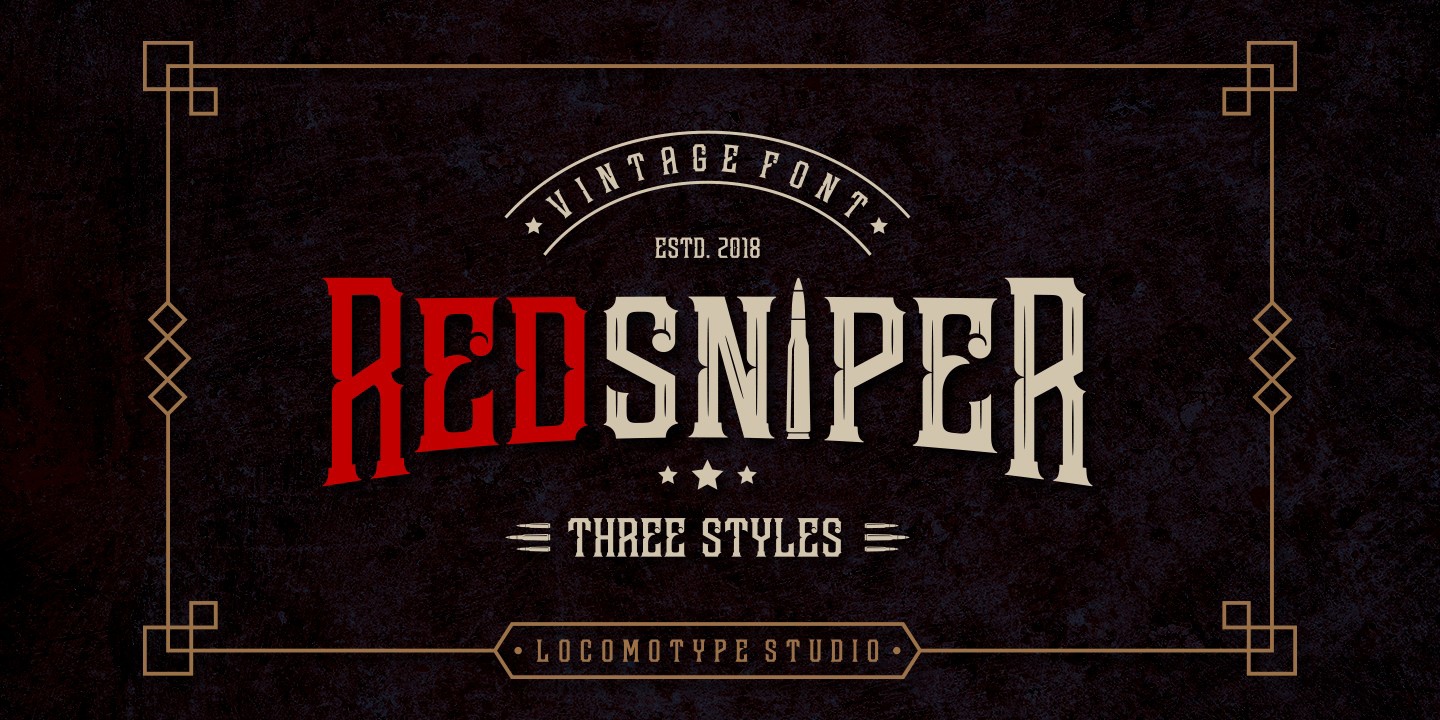
Redsniper Font
This tactical typeface is perfect for military gaming, sniper equipment, precision instruments, tactical gear, shooting sports, hunting brands, military simulation, combat training, and sharp-shooting design applications.
What makes this font exciting is its precision targeting combined with tactical accuracy, offering designers a sharp-shooting typeface that captures the essence of military precision while delivering sniper-level focus and crosshair visual dominance.
The Redsniper font family includes light, regular, medium, bold, tactical, and precision variations, providing complete military design solutions for creating accurate tactical visual identities.
Whether you're developing precision equipment brands or crafting tactical design experiences, Redsniper Font Free Download brings exceptional military atmosphere and sniper authenticity to every application. This precise typeface combines military typography traditions with contemporary tactical design, creating letterforms that inspire accuracy and celebrate precision excellence. The font's tactical construction and sharp-shooting-ready details make it perfect for brands seeking immediate military recognition.
Redsniper Font features carefully engineered tactical styling with authentic military character that conveys genuine precision expertise. Each character has been designed with sharp proportions and targeting elements that enhance the accurate aesthetic. The font's tactical qualities make it particularly effective for military brands and precision applications.
Professional designers choose Redsniper Font for projects requiring authentic military credibility and tactical atmosphere. Its precision heritage makes it exceptionally well-suited for military equipment companies, shooting sports organizations, and tactical lifestyle brands. The font's versatile tactical variations allow designers to control the precision intensity, from subtle military elegance to full sniper celebration.
The complete Redsniper Font package offers extensive military ornaments and tactical decorative elements that enhance the precise aesthetic. Advanced targeting features allow designers to create complex military effects with multiple precision-inspired options. This comprehensive tactical toolkit ensures designers have everything needed to create authentic military communications that celebrate the relentless pursuit of tactical precision and sniper-level accuracy excellence.